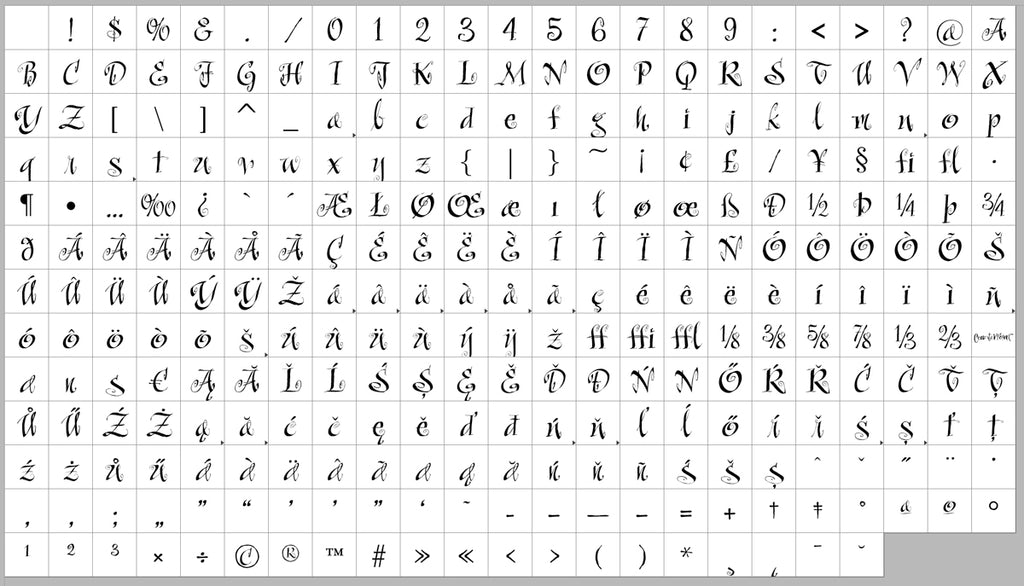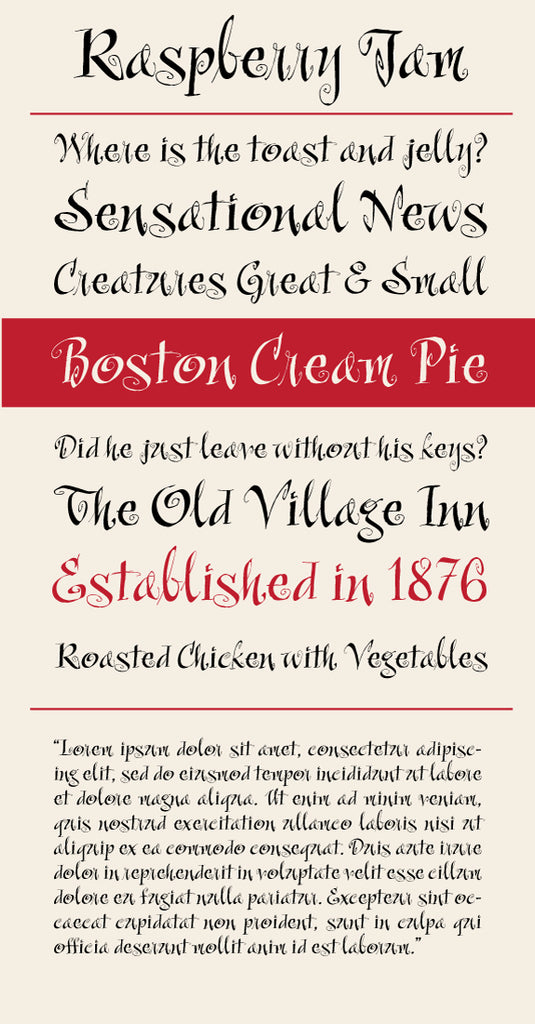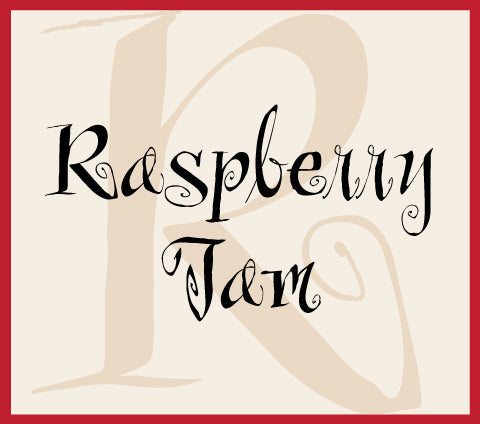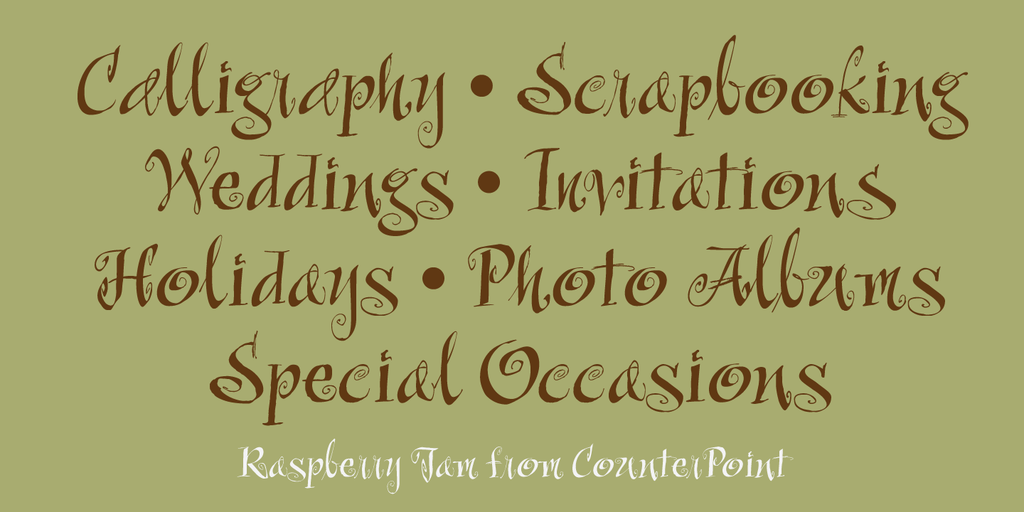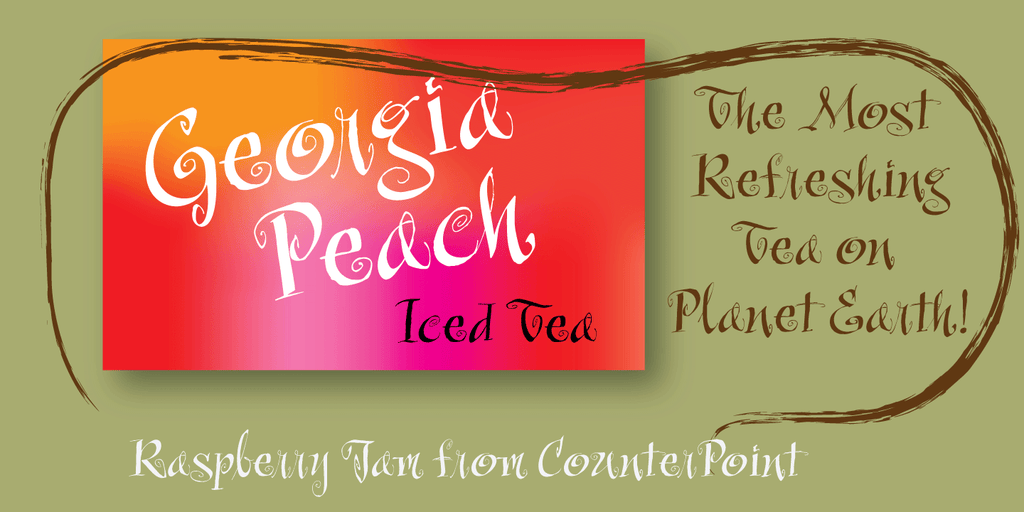
Raspberry Jam
Raspberry Jam is a whimsical and fun calligraphy style font that is perfect for informal and fun occasions! The design was inspired by a series of scrapbooking style fonts that I have been exploring over the past couple of years and is loosely based on a hand lettered sample in a lettering 'how to' book. Contains language support for both Latin-based and most Eastern European languages.